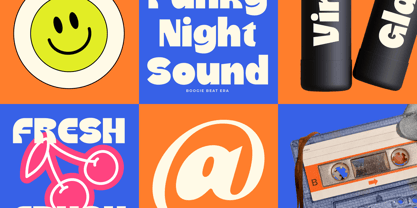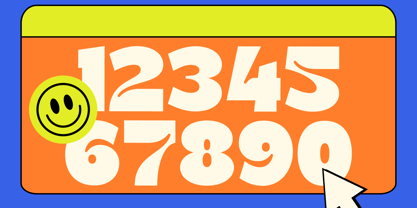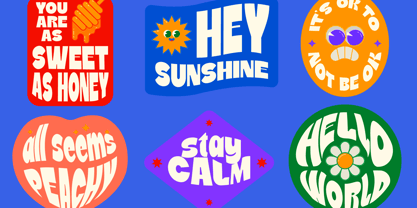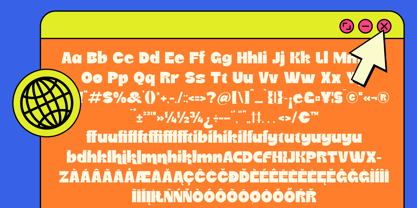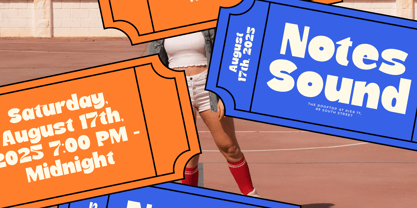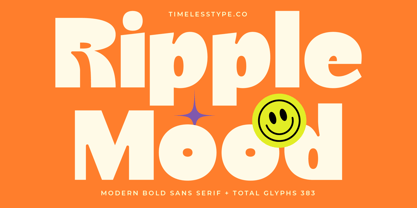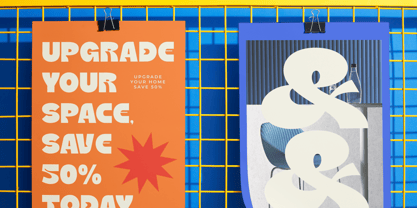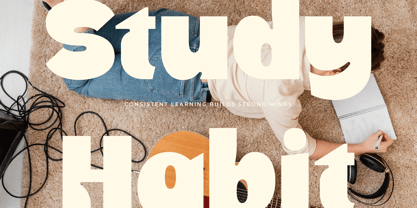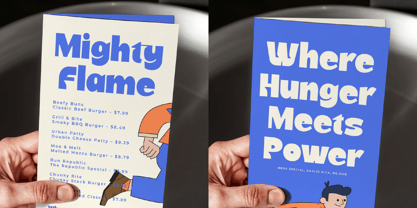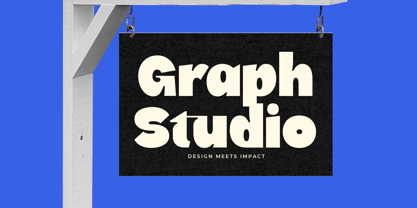
Ripple Mood
by Timelesstype Studio
The Ripple Mood Font Family was designed by Heru Utama Putra and published by Timelesstype Studio. Ripple Mood contains 2 styles and family package options.
Ripple Mood - Modern Bold Sans Serif , from Timelesstype, Suitable for any projects such as: logos, branding projects, homeware designs, product packaging, mugs, quotes, posters, shopping bags, t-shirts, book covers, name card, invitation cards, greeting cards, label, photography, watermark, special events, and all your other luxury and beautiful projects that need a Luxury Serif taste.